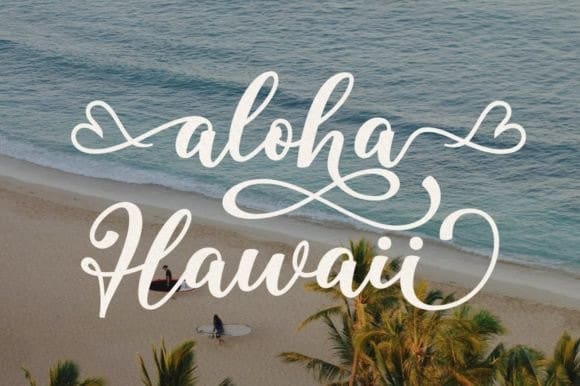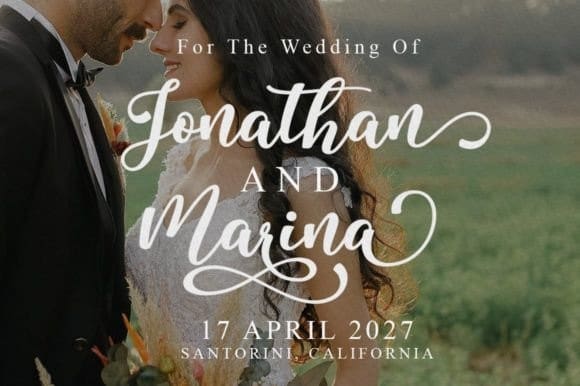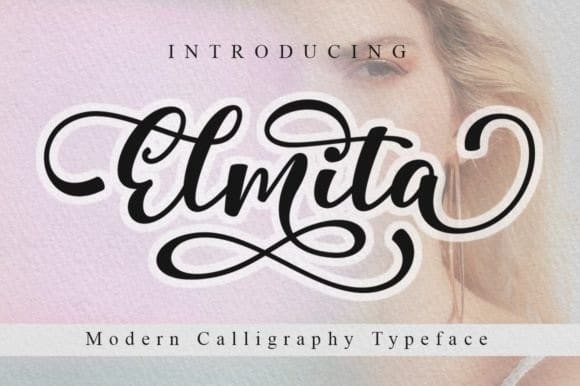
Elmita Font
Elmita Font is a modern calligraphy font written in soft motion using an Artline brush pen, this font is perfect for logos, T-shirts, product packaging, greeting cards, brands, blogs, wedding invitations, all-inclusive charms, etc.